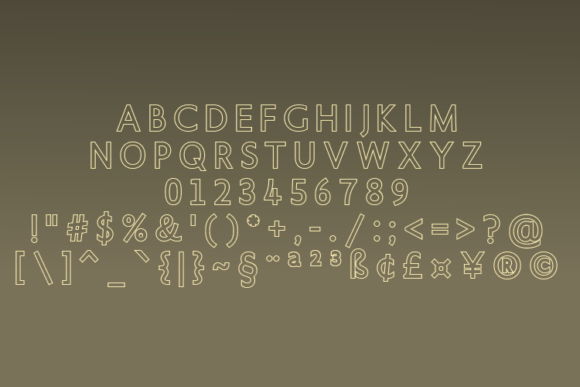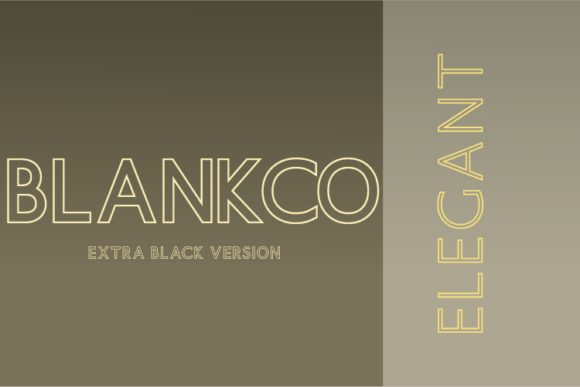
Discover the Bold and Versatile Blankco Outline Extra Black Font
Are you on the hunt for a font that can elevate your design projects to the next level? Look no further than the Blankco Outline Extra Black Font. This fresh, geometric, sans-serif font is perfect for designers and crafters who want to add a touch of modernity and sophistication to their work. In this article, we’ll dive into the features and benefits of the Blankco Outline Extra Black Font and explore how it can be used in a variety of design applications.
What is Blankco Outline Extra Black Font?
Blankco Outline is a geometric, sans-serif font that boasts a big x-height value, geometrical letterforms, sharp edges, and a small stroke contrast. These characteristics make it similar to the neo-grotesk fonts of the 20th Century, but with a fresh and modern twist. The font’s versatility is one of its standout features, making it suitable for use in a wide range of design projects, from magazines and posters to branding and websites.
Key Features of Blankco Outline Extra Black Font
- Geometric design: The font’s geometric design gives it a clean and modern look that’s perfect for designers who want to create sleek and sophisticated designs.
- Big x-height value: The font’s large x-height value makes it highly legible, even at small sizes.
- Sharp edges: The font’s sharp edges add a touch of edginess and modernity to any design.
- Small stroke contrast: The font’s small stroke contrast gives it a subtle nuance that’s perfect for designers who want to create designs with depth and character.
How to Use Blankco Outline Extra Black Font in Your Designs
The Blankco Outline Extra Black Font is an incredibly versatile font that can be used in a wide range of design applications. Here are a few ideas to get you started:
- Magazines and newspapers: The font’s high legibility and clean design make it perfect for use in magazines and newspapers.
- Posters and flyers: The font’s bold and geometric design make it perfect for use in posters and flyers that need to grab attention.
- Branding and logos: The font’s modern and sophisticated design make it perfect for use in branding and logos.
- Websites and digital media: The font’s clean design and high legibility make it perfect for use on websites and digital media.
Benefits of Using Blankco Outline Extra Black Font
There are many benefits to using the Blankco Outline Extra Black Font in your designs. Here are a few:
- Instant recognition: The font’s bold and geometric design make it instantly recognizable.
- High legibility: The font’s large x-height value and clean design make it highly legible, even at small sizes.
- Versatility: The font’s versatility makes it suitable for use in a wide range of design applications.
- Modern and sophisticated: The font’s modern and sophisticated design make it perfect for designers who want to create sleek and sophisticated designs.
In conclusion, the Blankco Outline Extra Black Font is a versatile and modern font that’s perfect for designers and crafters who want to add a touch of sophistication and elegance to their work. With its geometric design, big x-height value, sharp edges, and small stroke contrast, this font is sure to elevate your design projects to the next level. Whether you’re working on a magazine, poster, branding project, or website, the Blankco Outline Extra Black Font is a great choice.